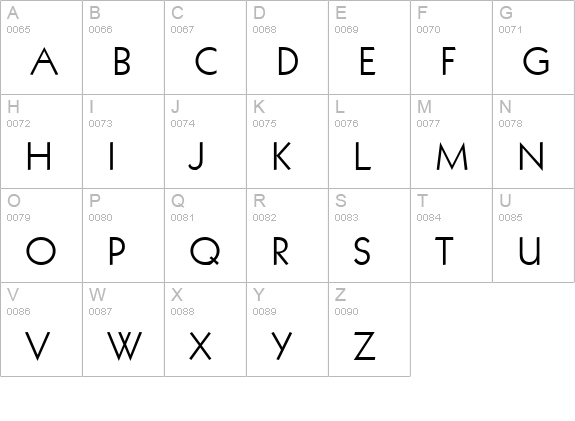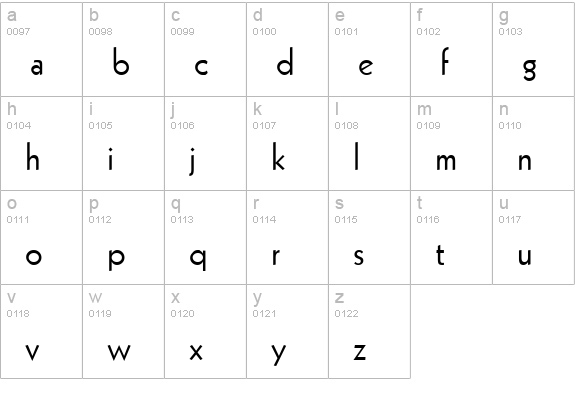
Geo 112 Normal is the standard, neutral variant in the Geo typeface family \xE2\x80\x94 well suited to general body text, paragraphs, and standard typographic work.
Geo 112 Normal font is a modern and sleek typeface that exudes elegance and sophistication. With its clean lines and versatile design, this font is perfect for a wide range of projects, from branding to editorial design. The balanced letterforms and subtle geometric shapes give Geo 112 Normal a timeless appeal that will elevate any design it is used in. Best of all, Geo 112 Normal font is available for free download at FontsMarket.com. This means you can easily access this high-quality font without any cost, making it a valuable addition to your font library. Don't miss out on the opportunity to enhance your projects with the effortlessly stylish Geo 112 Normal font – download it for free today!